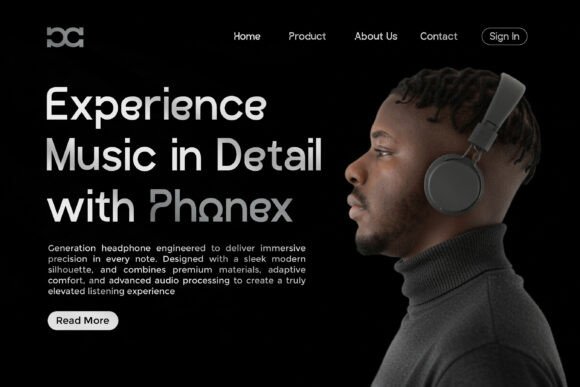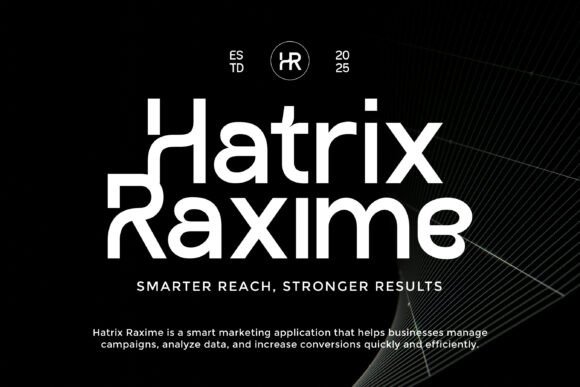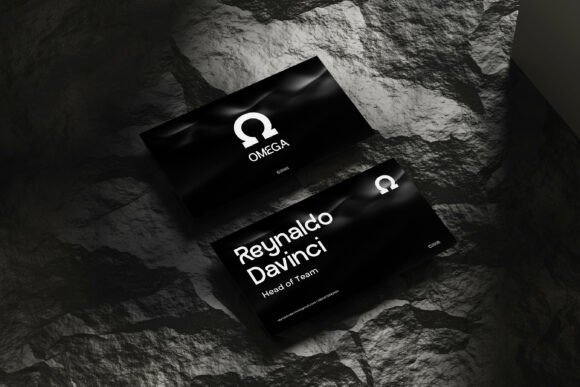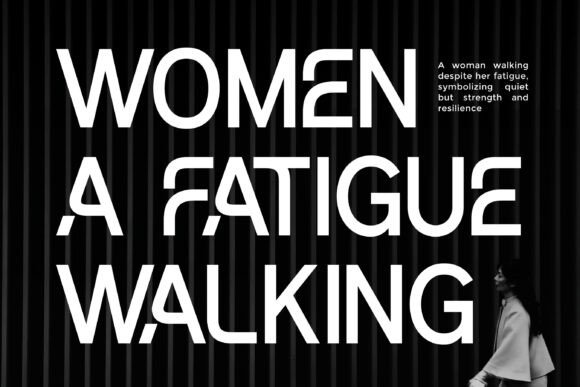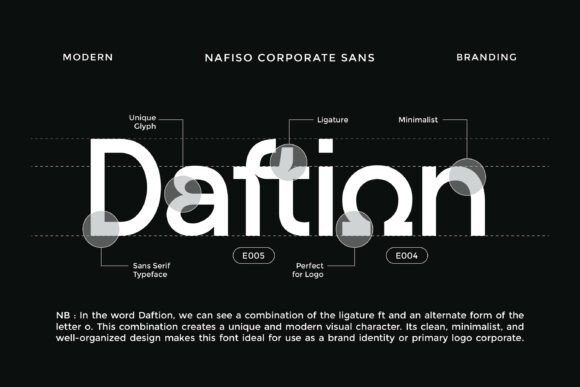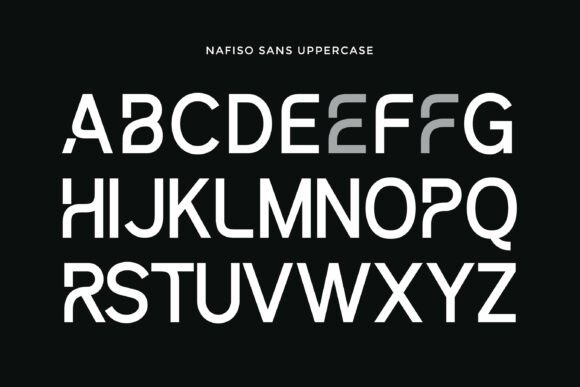
Introduction to Nafiso Font
You’ve been staring at your screen for hours, trying to find the perfect font to elevate your latest creative project. The blank slate in front of you seems to mock your every attempt, until suddenly, a spark of inspiration hits – a clean, modern sans serif that screams professionalism and clarity. This is the moment when the Nafiso Font enters the picture, offering a fresh perspective and a reliable solution for your design needs.
As a valuable resource for designers, the Nafiso Font stands out for its exceptional readability, balanced proportions, and clean lines that make it perfect for a wide range of applications, from corporate branding to UI design and marketing materials.
Whether you’re working on a free download or a high-end creative project, the Nafiso Font is a top-notch design resource that will help you achieve a transparent and cohesive visual identity, making it a must-have for any serious designer.
Key Features of Nafiso Font
- High-quality font design with a transparent background, making it perfect for creative projects and design resources.
- Designed with a clean and modern aesthetic, the Nafiso Font is ideal for use in logos, branding materials, and other visual identity elements.
- With its unique characteristics and high-quality design, the Nafiso Font is an excellent addition to any designer’s or artist’s toolkit.
- Available in a single weight, making it easy to use and integrate into various design projects.
Honest Review: Nafiso Font
I recently stumbled upon the Nafiso Font while searching for design resources for a creative project. The font caught my eye with its unique aesthetic, and I was excited to dive in and see what it had to offer.
What works well: ✨ The Nafiso Font is a high-quality font that is perfect for designers looking for a unique and creative font to add to their design arsenal. The font comes in both a transparent background and a solid background option, making it easy to use in a variety of design projects. The font is also free to download, which is a major plus for designers on a budget.
What doesn’t work well: ⚠️ While the Nafiso Font is a high-quality font, it may not be suitable for all design projects. The font’s unique aesthetic may not be to everyone’s taste, and it may not be the best choice for projects where a more traditional font is needed.
Overall impression: I was impressed with the Nafiso Font and its unique aesthetic. While it may not be the best choice for every design project, it’s a great option for designers looking for a high-quality, creative font to add to their design arsenal. If you’re looking for a free design resource that can add some personality to your designs, the Nafiso Font is definitely worth checking out.
Key features:
- High-quality font with a unique aesthetic
- Comes in both transparent background and solid background options
- Perfect for designers looking for a creative font to add to their design arsenal
How to Use Nafiso Font
Introduction to Nafiso Font
The Nafiso Font is a high-quality design resource that can elevate your creative project. It features a unique and elegant style, perfect for adding a touch of sophistication to your designs.
Tips for Getting the Most Out of Nafiso Font
To get the most out of the Nafiso Font, use it on a transparent background to create a seamless design. Experiment with different font sizes and styles to add depth and interest to your design.
Common Use Cases for Nafiso Font
The Nafiso Font is perfect for a variety of creative projects, including wedding invitations, business cards, and marketing materials. Its elegant style makes it ideal for formal events and corporate designs.
Yes, the Nafiso Font supports transparent backgrounds, making it ideal for use in designs that require a high level of customization and flexibility. This feature allows you to create visually striking designs with a seamless integration of the font and background elements.